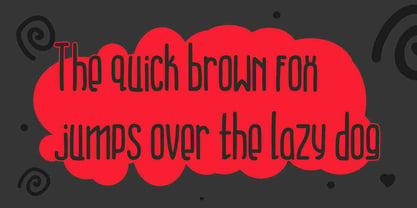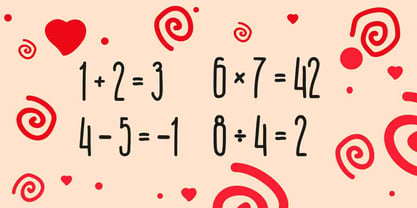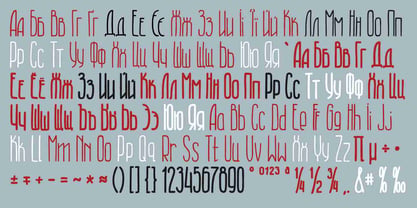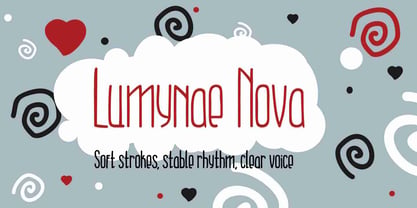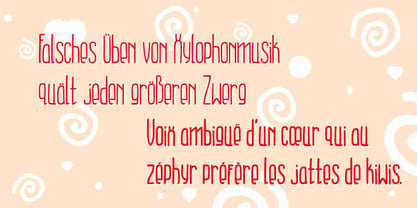
Lumynae Nova
La familia tipográfica Lumynae Nova fue diseñada por Viktoriia Brovko y publicada por Brovikki. Lumynae Nova contiene 2 estilos y opciones de paquete familiar. Más información sobre esta familia
Lumynae Nova is an upright font that looks as if written with a marker. It was originally used for message bubbles and character dialogues, but later evolved into a full text typeface. The letters stand straight without slant, with a stable rhythm and soft strokes. Lumynae has a single style — Regular, supports Latin, Russian and Ukrainian alphabets, and includes punctuation marks and mathematical symbols. It is suitable for illustration, game design, board games, and texts where a friendly and readable style is needed.